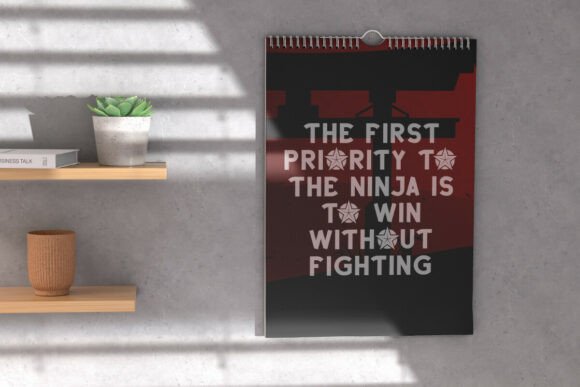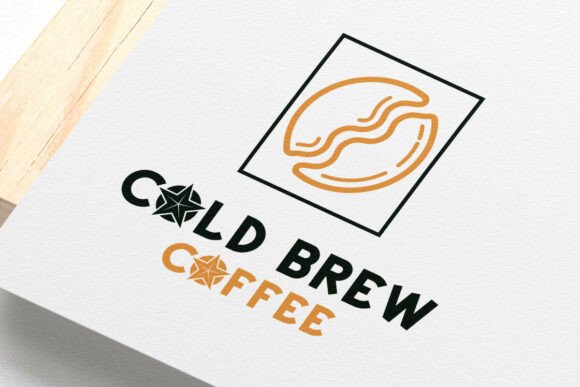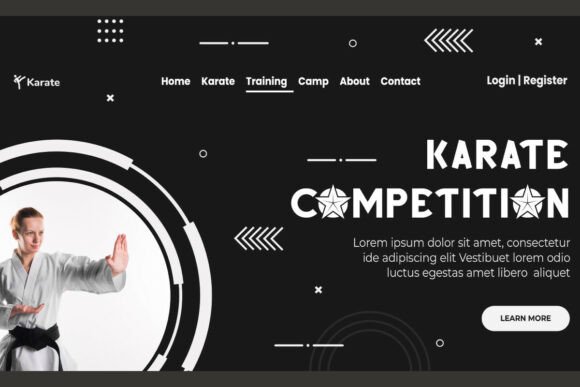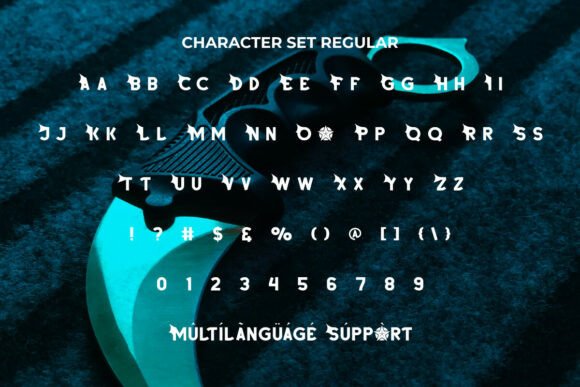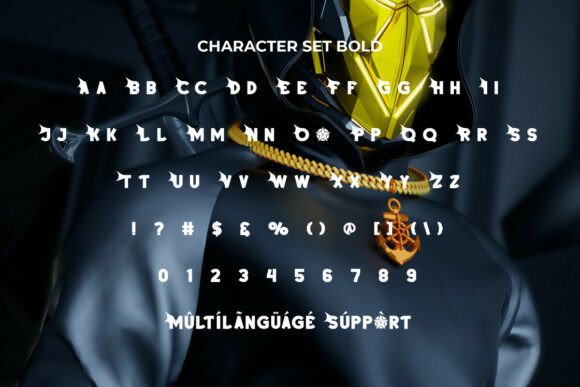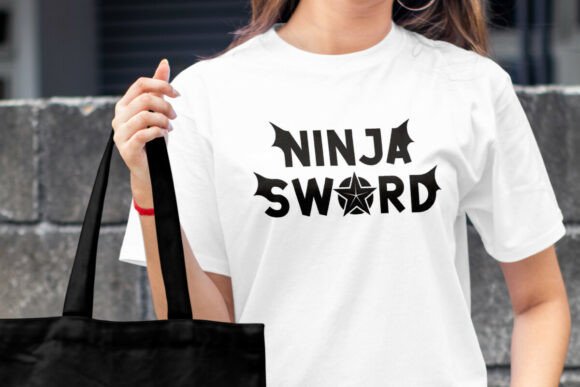
Introduction to Ninjasword Font
Have you ever found yourself stuck in a design rut, searching for the perfect font to give your project that extra oomph? You know, that moment when everything else seems dull, and you just need something to cut through the noise. That’s where the Ninjasword Font comes in – a game-changing display font that’s about to revolutionize your creative process.
With its bold, modern style and martial arts-inspired elements, the Ninjasword Font is the ultimate design resource for anyone looking to add a touch of edginess to their work. Whether you’re working on a high-end campaign or a quick social media post, this versatile font is sure to make your design stand out. Plus, with its transparent background and high-quality design, it’s the perfect addition to any project.
As a valuable asset for designers, the Ninjasword Font offers a wide range of customization options, including a bold version and alternate characters. And the best part? It’s available for free download, making it an absolute must-have for any creative project.
Key Features of Ninjasword Font
- Unique and bold design style, perfect for creative projects that require a strong visual statement.
- Designed to be versatile and adaptable, making it suitable for various design applications, from logos to typography-based designs.
Honest Review: Ninjasword Font
As a designer, I’m always on the lookout for high-quality design resources that can elevate my creative projects. The Ninjasword Font is one such find that has caught my attention lately. In this review, I’ll share my honest thoughts on what works well and where it falls short.
✨ What works well:
- Unique and edgy design aesthetic that’s perfect for bold and futuristic themes
- High-quality glyphs that render well on transparent backgrounds
- Well-suited for digital design projects, including UI/UX, graphics, and more
⚠️ Limitations:
- Not ideal for projects requiring a more subtle or traditional font style
- Limited character set, which may not be suitable for extensive text-based projects
Overall, I’m impressed with the Ninjasword Font’s design quality and versatility. While it may not be the best fit for every project, it’s a solid addition to any designer’s toolkit, especially for those working on creative projects that demand a bold and futuristic look. With its free download option and high-quality glyphs, it’s definitely worth checking out.
The Ninjasword Font is perfect for creating eye-catching titles, headings, and captions for your creative projects. You can also use it to create custom watermarks or logos with a transparent background.
To get the most out of the Ninjasword Font, use it in conjunction with other design elements, such as graphics and images. Experiment with different font sizes, colors, and styles to create a unique look.